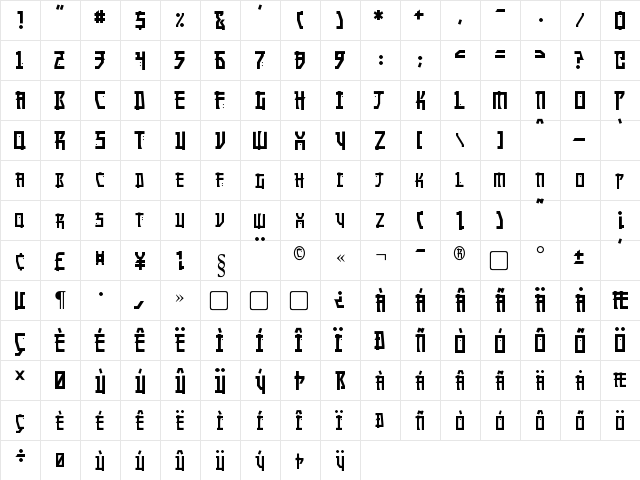
Manga Regular
| Designer | Neale Davidson |
Design Context for Manga Typeface
Manga is a composed and adaptable typeface that performs quietly and consistently across a wide range of design contexts.